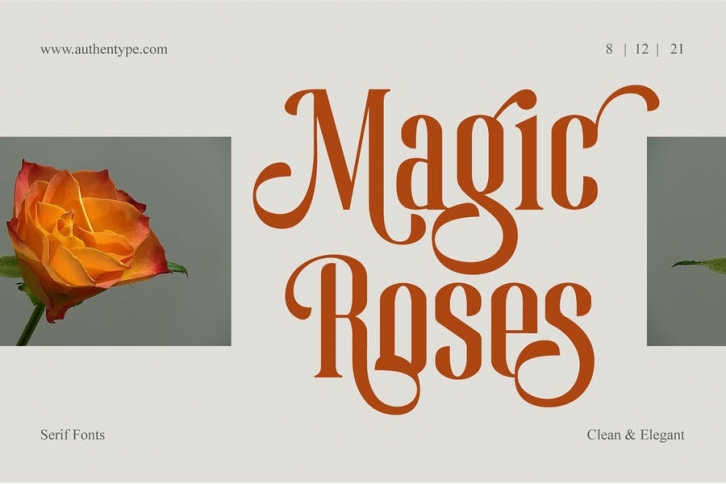
Magic Roses - Serif Clean Elegant font with discretionary ligatures that give each word a different shape. Also contains a swash with an elegant, contrasting and clean, perfect for logo designs, posters and various types of promotional media.
- Standard glyphs uppercase and lowercase letters
- Numerals, a large range of punctuation and ligatures.
- Swashes.